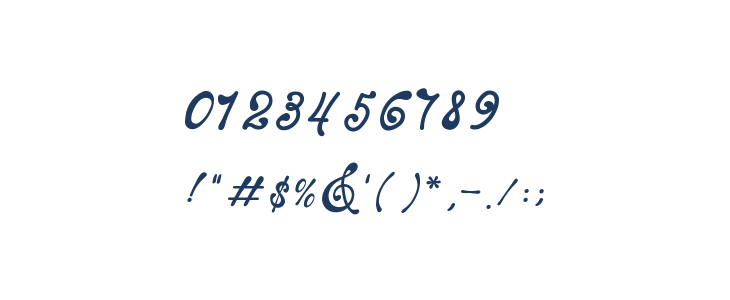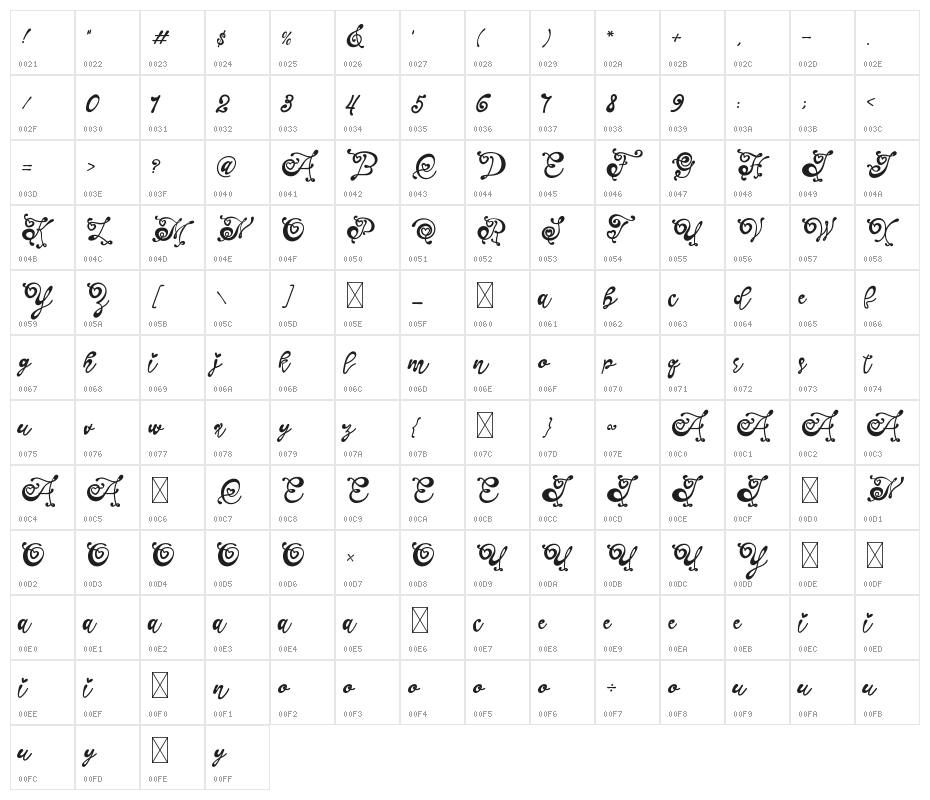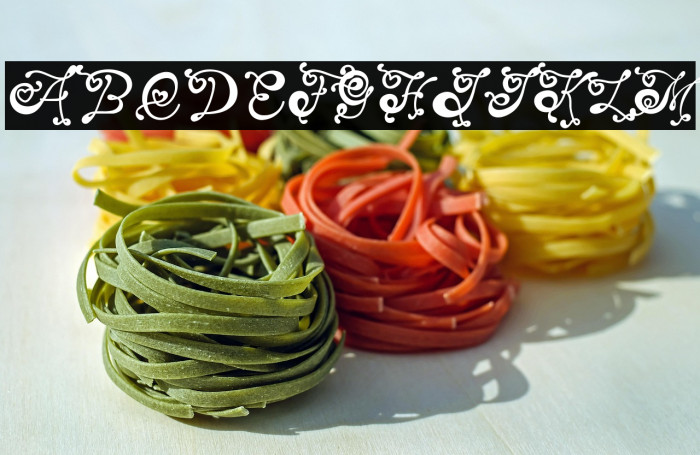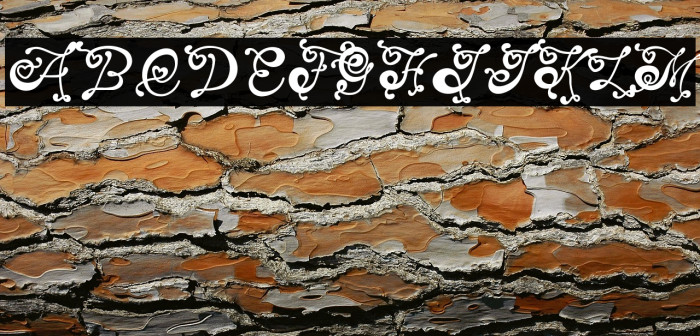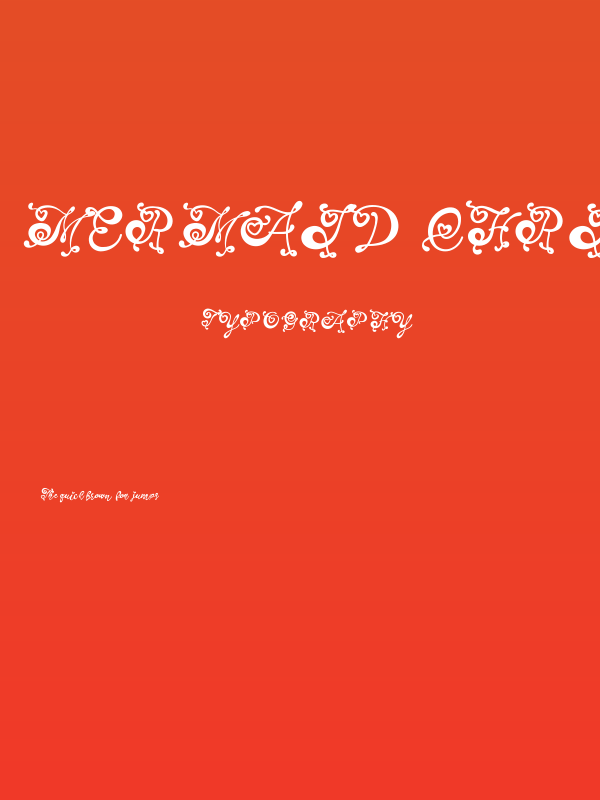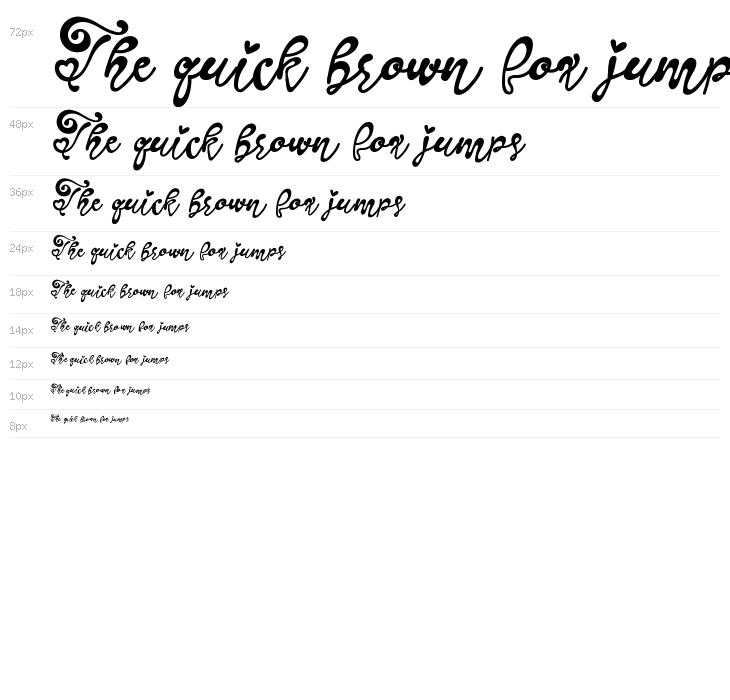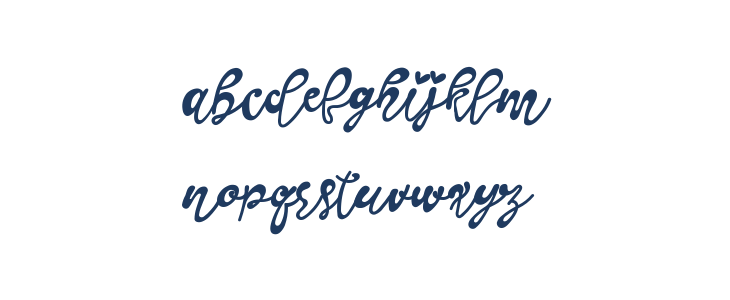
Mermaid Christmas Font
Mermaid Christmas Description
This font features a whimsical and festive design, perfect for holiday-themed projects. The uppercase letters are adorned with decorative swirls and dots, giving them a playful and ornate appearance. The lowercase letters maintain a script-like style, flowing smoothly with a handwritten feel. The numbers and special characters are consistent with the overall theme, incorporating similar decorative elements. This font exudes a joyful and celebratory vibe, making it ideal for creative and festive applications.